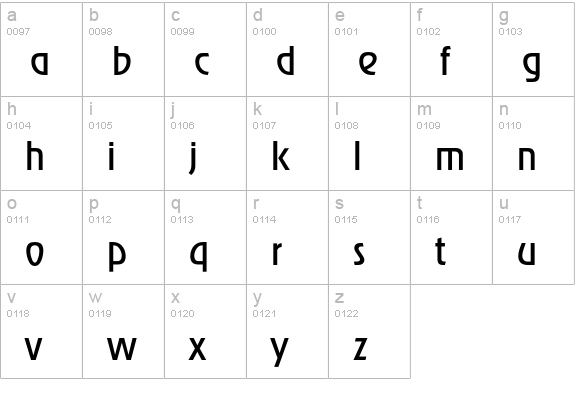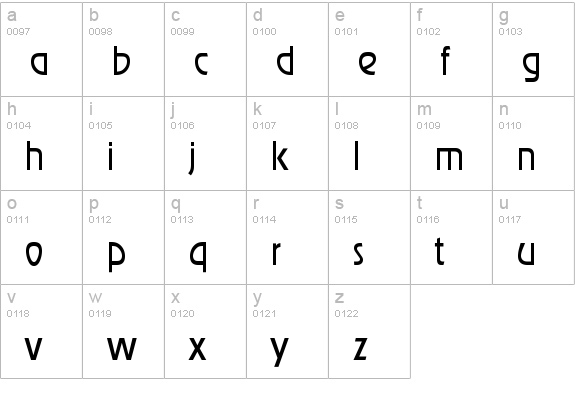
Ragtime-Regular Font Details
Ragtime-Regular is the standard, neutral variant in the Ragtime typeface family \xE2\x80\x94 well suited to general body text, paragraphs, and standard typographic work.
Ragtime-Regular font is a classic and timeless typeface that exudes a sense of elegance and sophistication. With its clean lines and graceful curves, this font is perfect for adding a touch of refinement to any project. Featuring a well-balanced combination of serif and sans-serif elements, Ragtime-Regular strikes the perfect balance between modernity and tradition. Its sleek and versatile design makes it suitable for a wide range of applications, from print materials to digital designs. What makes Ragtime-Regular font even more appealing is that it is freely available to download at FontsMarket.com. This means that you can effortlessly enhance your creations without any additional cost. Whether you're a professional designer or a hobbyist, this font is accessible to all, allowing you to unleash your creativity without any constraints. With Ragtime-Regular font, your designs will stand out from the crowd and make a lasting impression. Its legible and well-crafted characters ensure readability, while its charming details add a unique flair. From headlines to body text, this font will elevate your typography game and bring your message to life. Incorporate Ragtime-Regular font into your next project and experience the seamless blend of style and functionality. Its timeless appeal and versatility will make it a valuable asset in your design toolkit. So don't miss out on this opportunity to enhance your creations with a high-quality font that is available for free at FontsMarket.com.